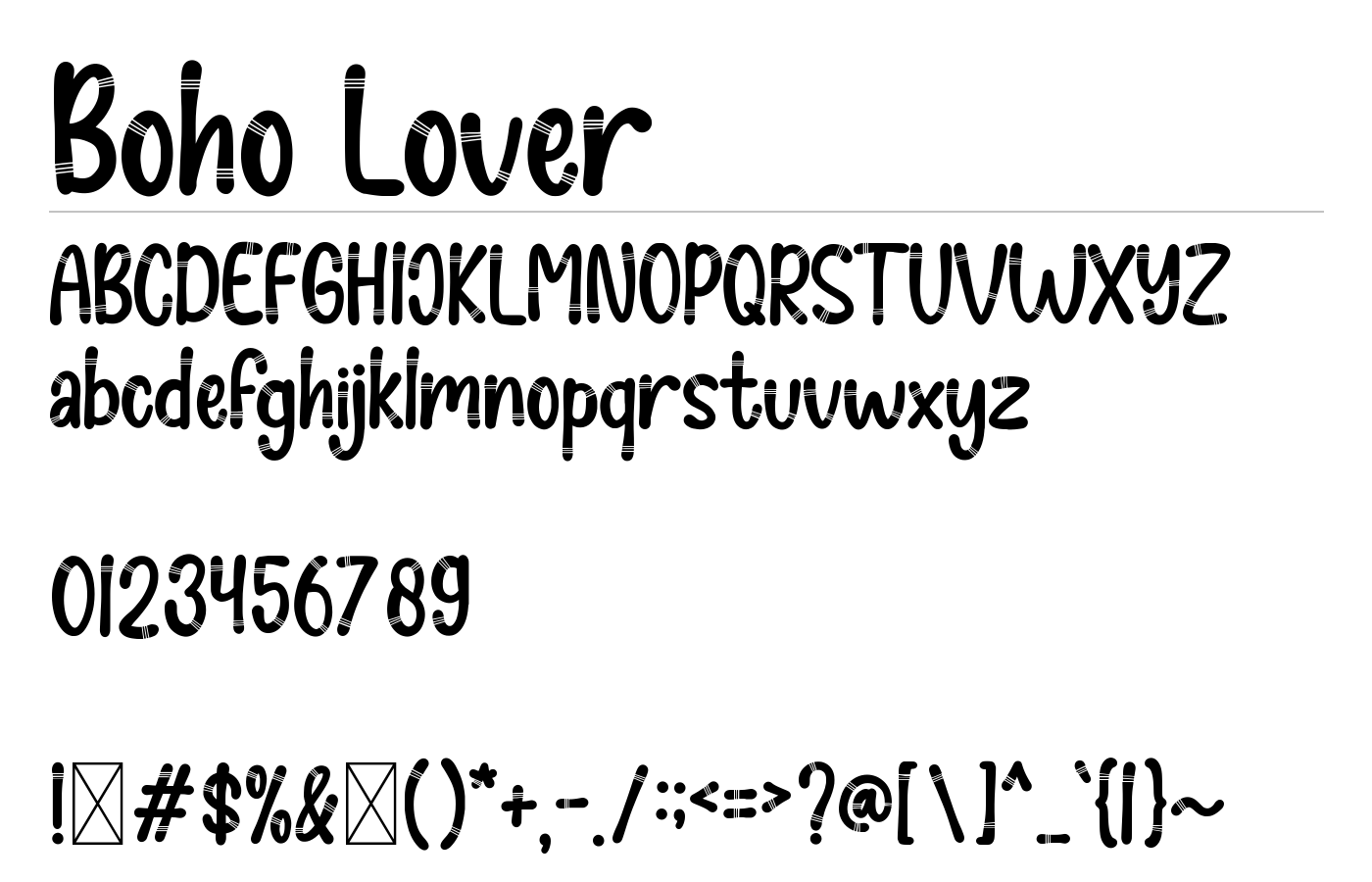
Boho Lover is a playful and casual sans serif font with a hand-drawn feel, characterized by its slightly rounded, tall letterforms and unique striped detailing on select strokes. It brings a whimsical and friendly vibe, making it ideal for creative projects, branding, and designs that want to convey a fun, approachable personality. This font works well in headlines, logos, and packaging where an inviting, bohemian charm is desired.
Boho Lover Font
About Boho Lover Font